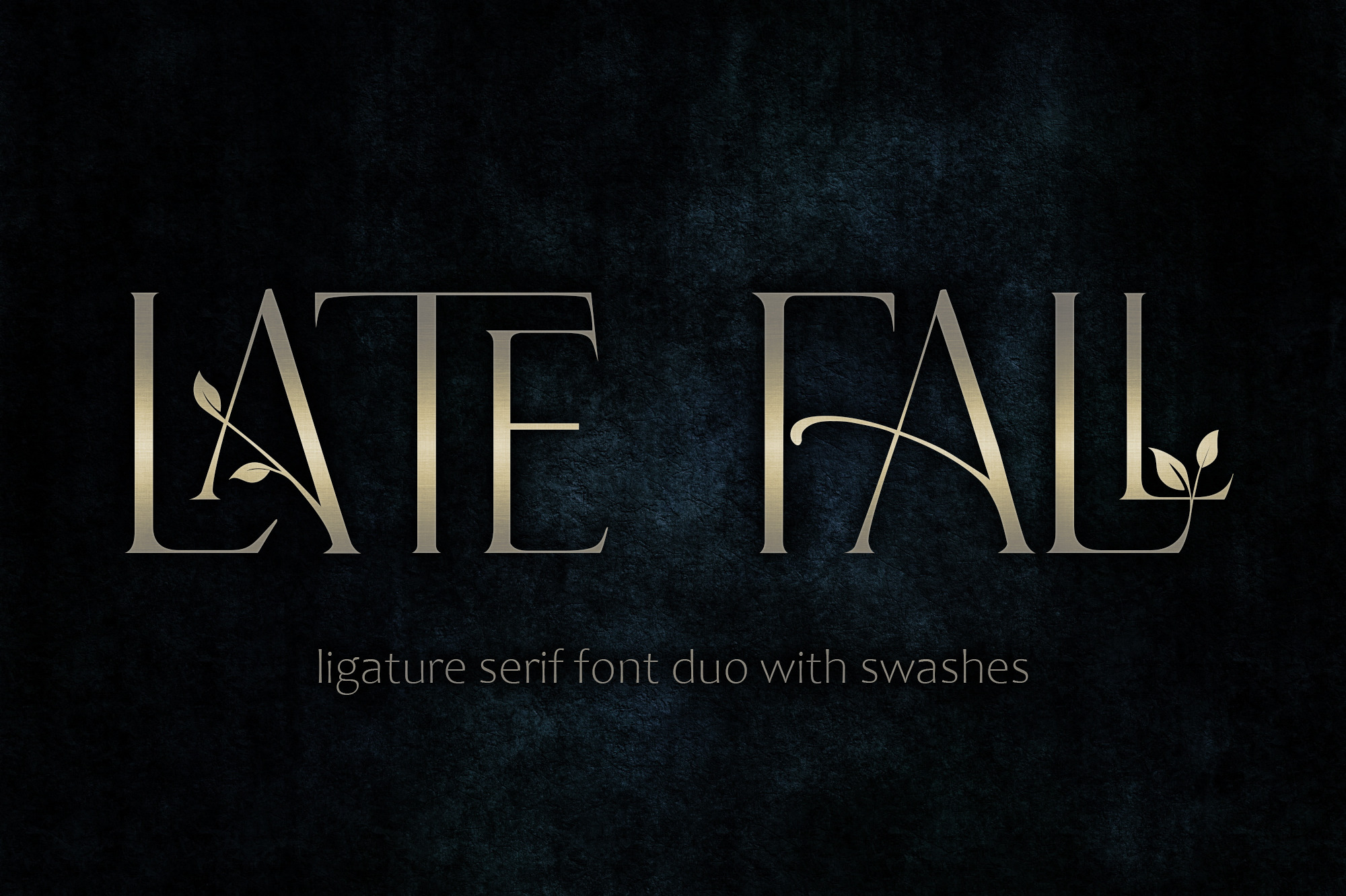
Late Fall - floral font duo
"Late Fall" - a unique serif font with ligatures and alternative typefaces, highlighted in a font with leaves - "Late autumn leaves". More than a hundred ligatures allow you to use the font for many purposes, such as logos, branding, headlines, printing on clothing, postcards, wedding invitations, and others. Refined plant elements will help to emphasize, for example, the idea of an ecological orientation or the naturalness of the product. All in all, this is a great tool for creative expression.
more than 100 ligatures;
swashes (R,H,A,K);
stylistic alternative (O, U, E, I, A)